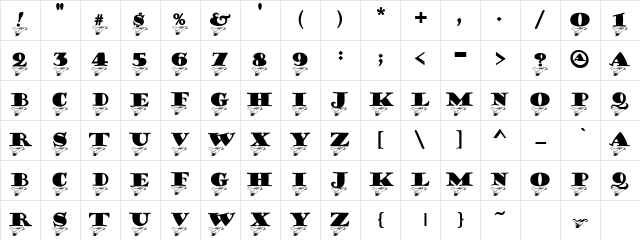
Portage Regular Free Font
Portage Regular
Design Context for Portage
Portage is a composed and adaptable typeface that performs quietly and consistently across a wide range of design contexts.